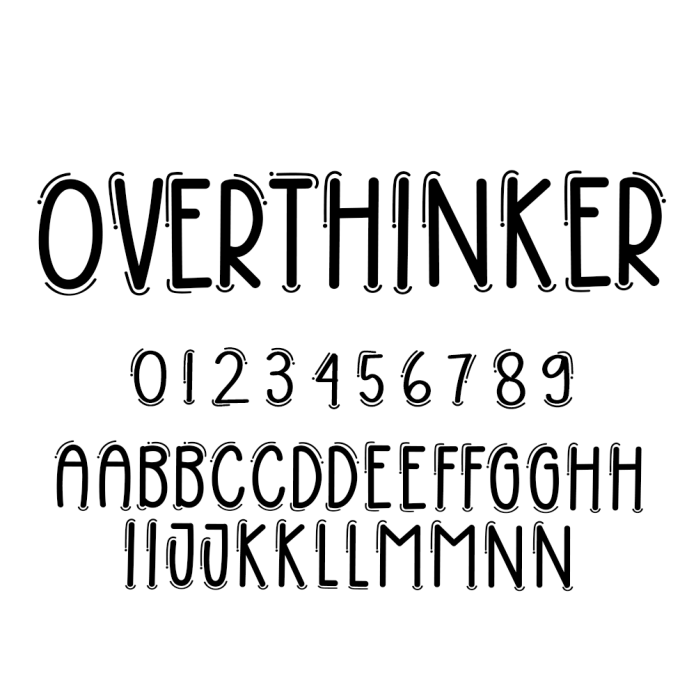
Overthinker Font is a sweet and friendly handwritten font. Fresh and casual, this font is ideal for writing wedding invitations, cards, or any other design that might need a lovely touch.